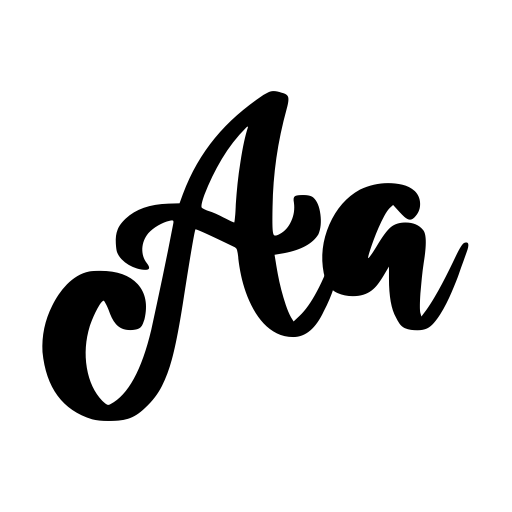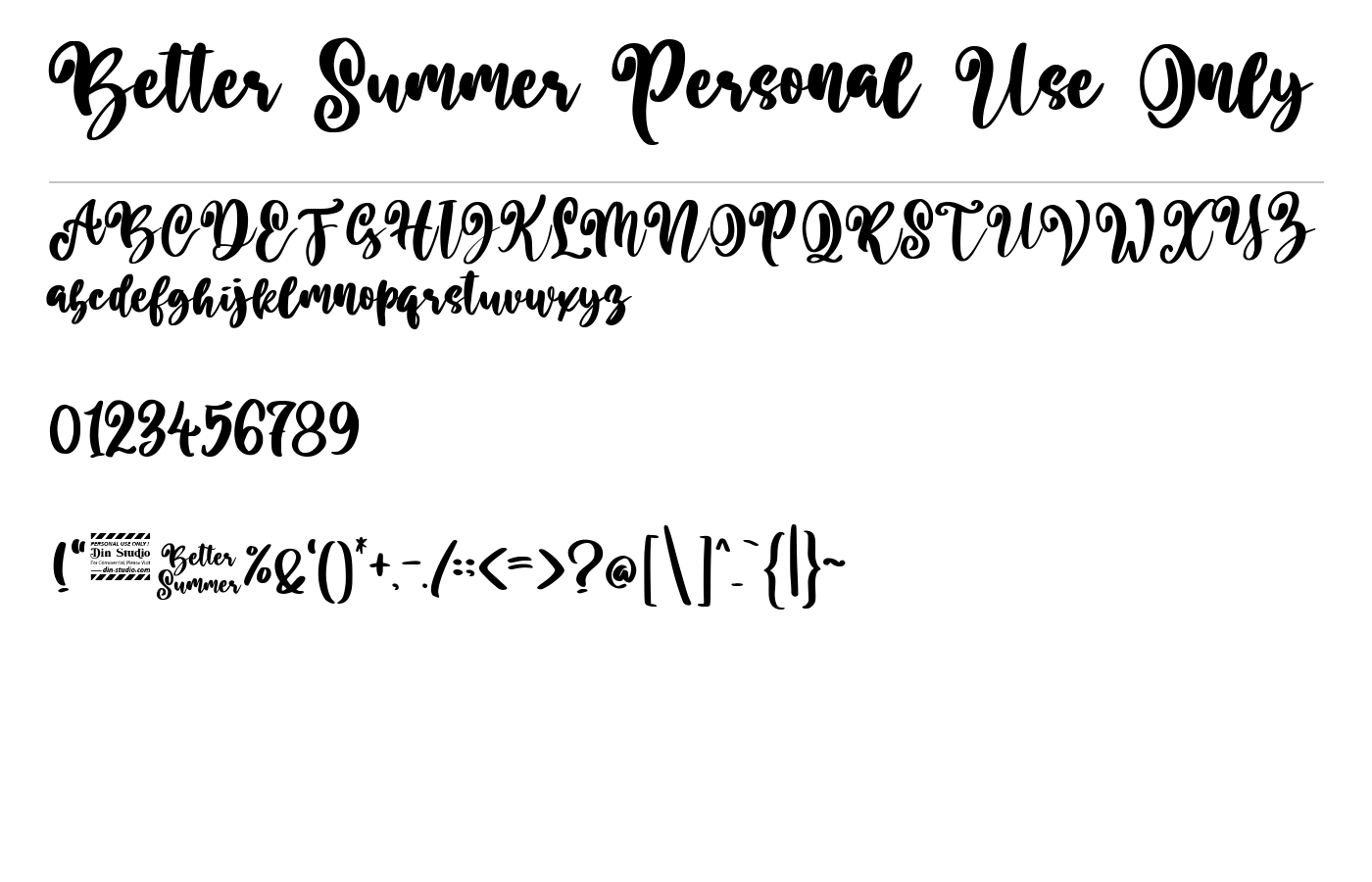
Better Summer Personal Use Only is a playful and bold script font with lively, rounded strokes that give it a casual yet elegant feel. Its connected letterforms and distinctive curls make it perfect for creative projects like invitations, branding, and eye-catching headlines. This font adds a friendly and warm personality to designs that seek a personal, handcrafted touch.
Better Summer Personal Use Only Font
About Better Summer Personal Use Only Font
| Font family | Better Summer Personal Use Only Font |